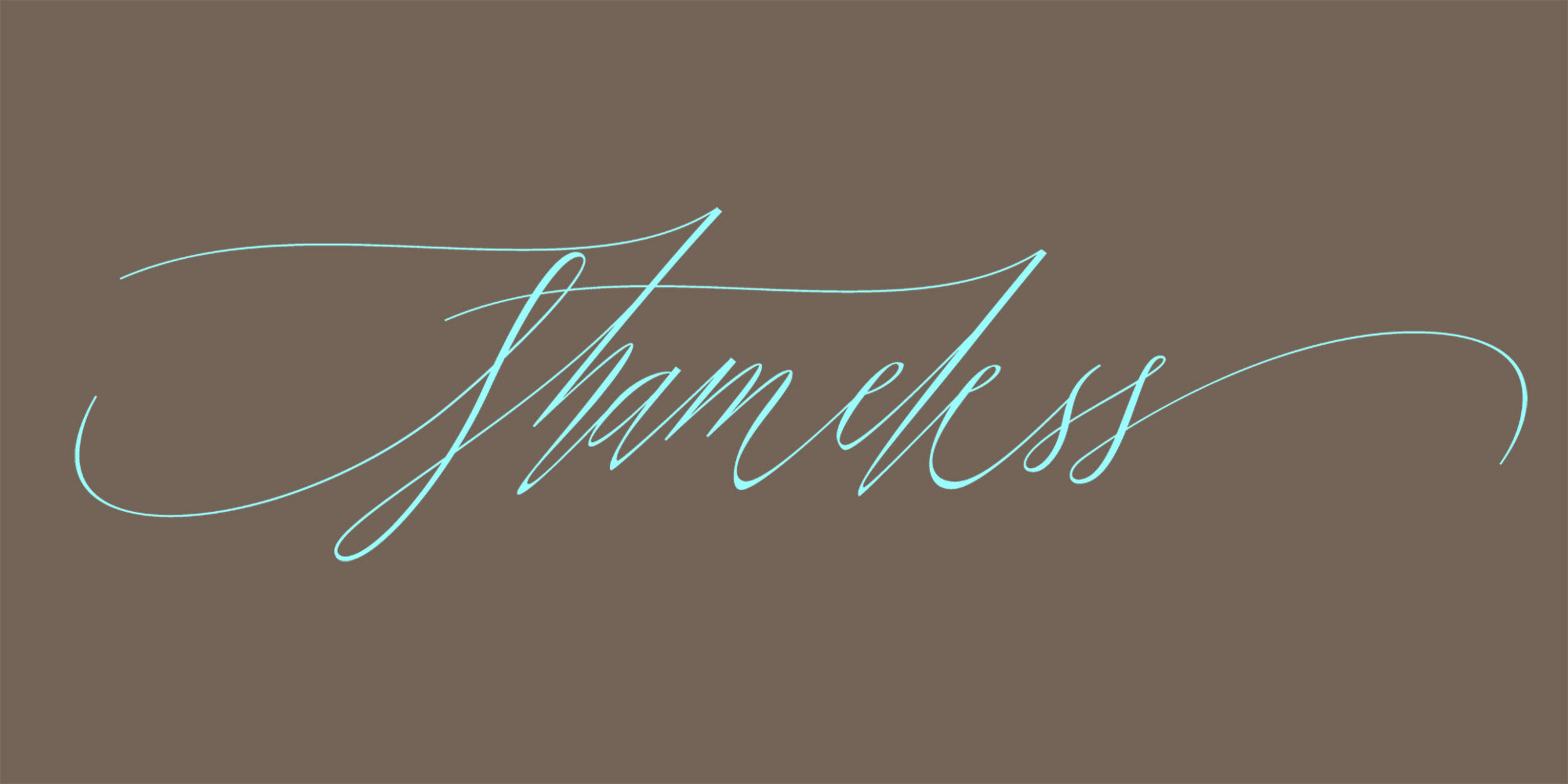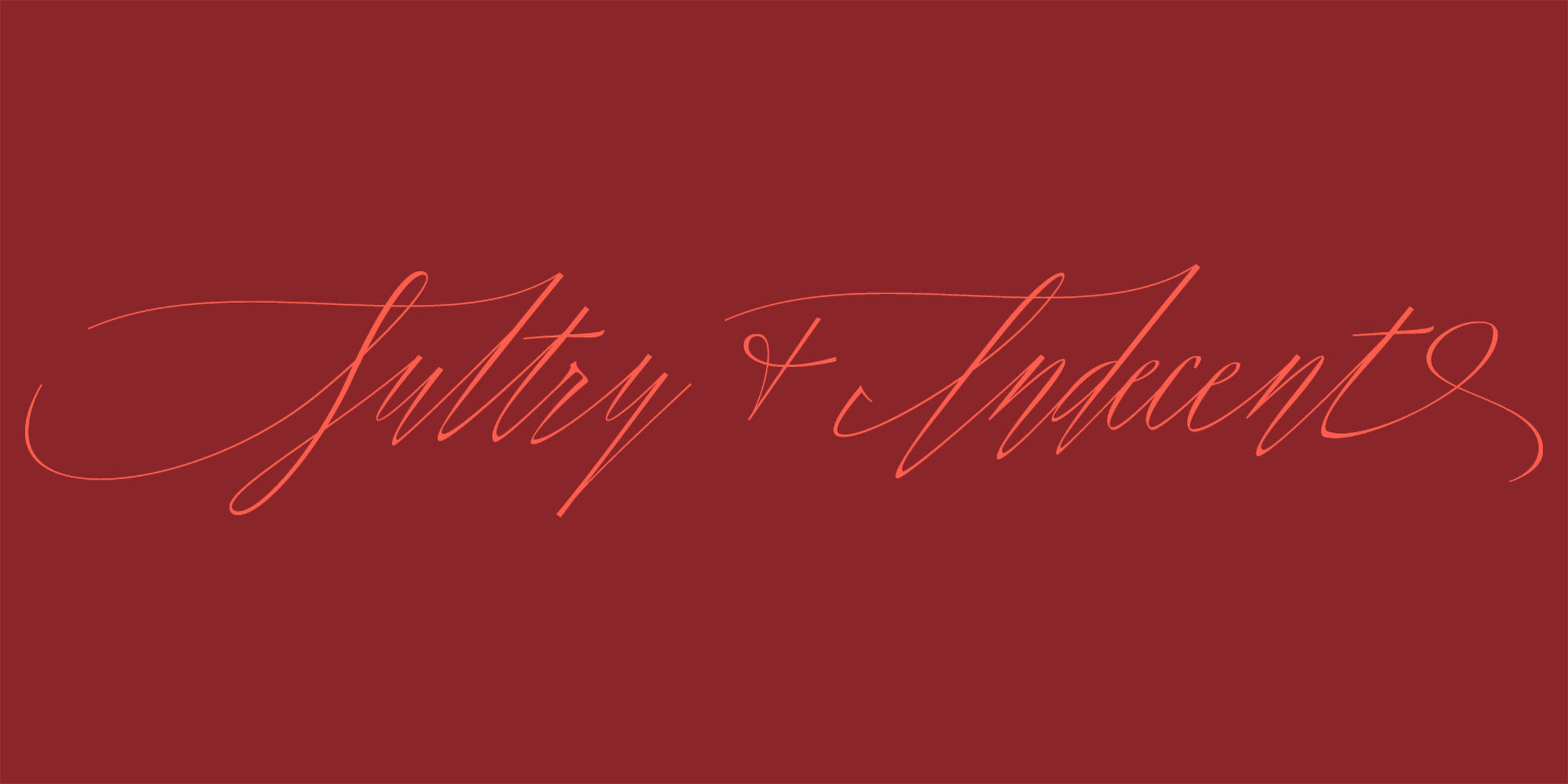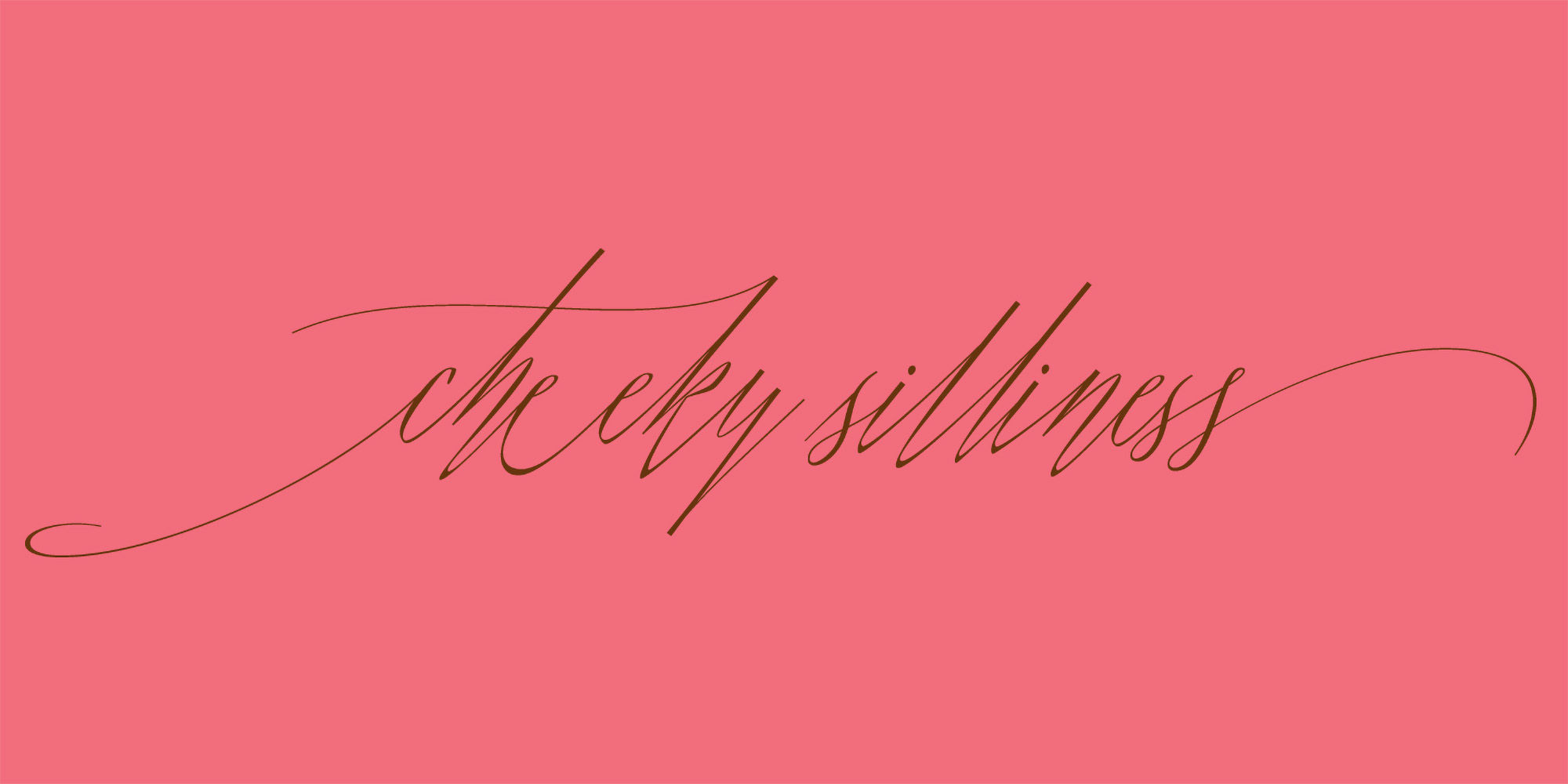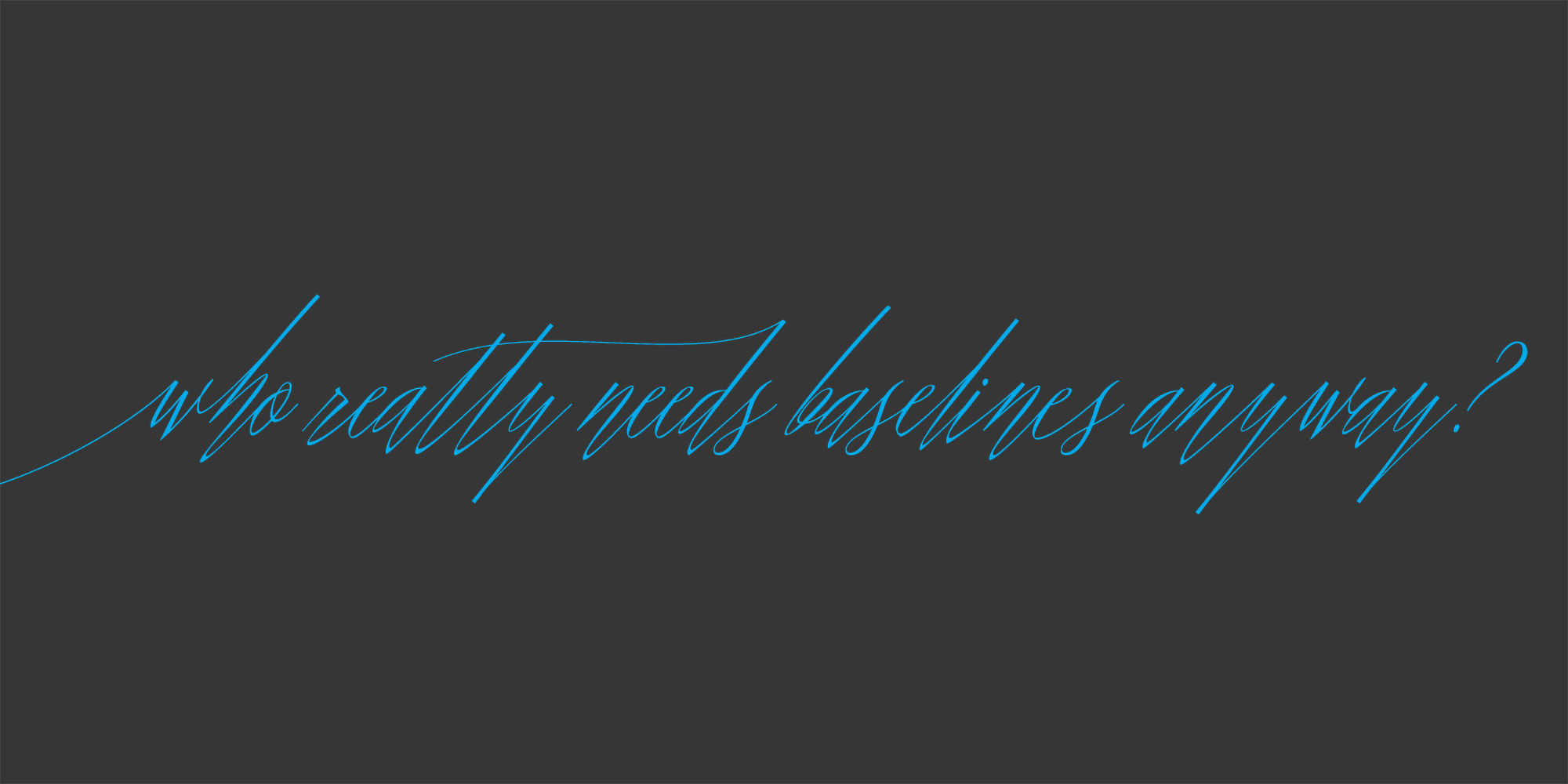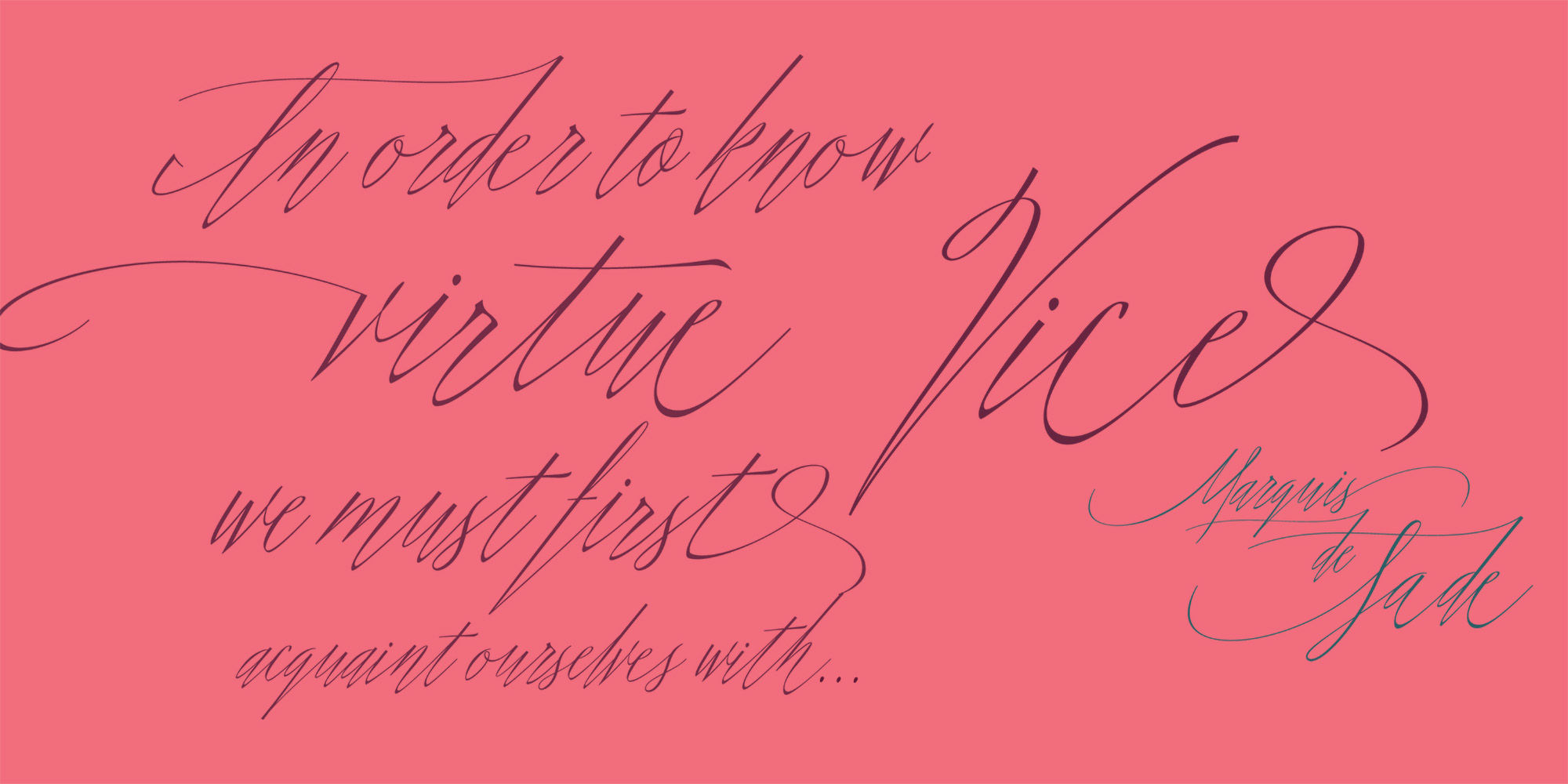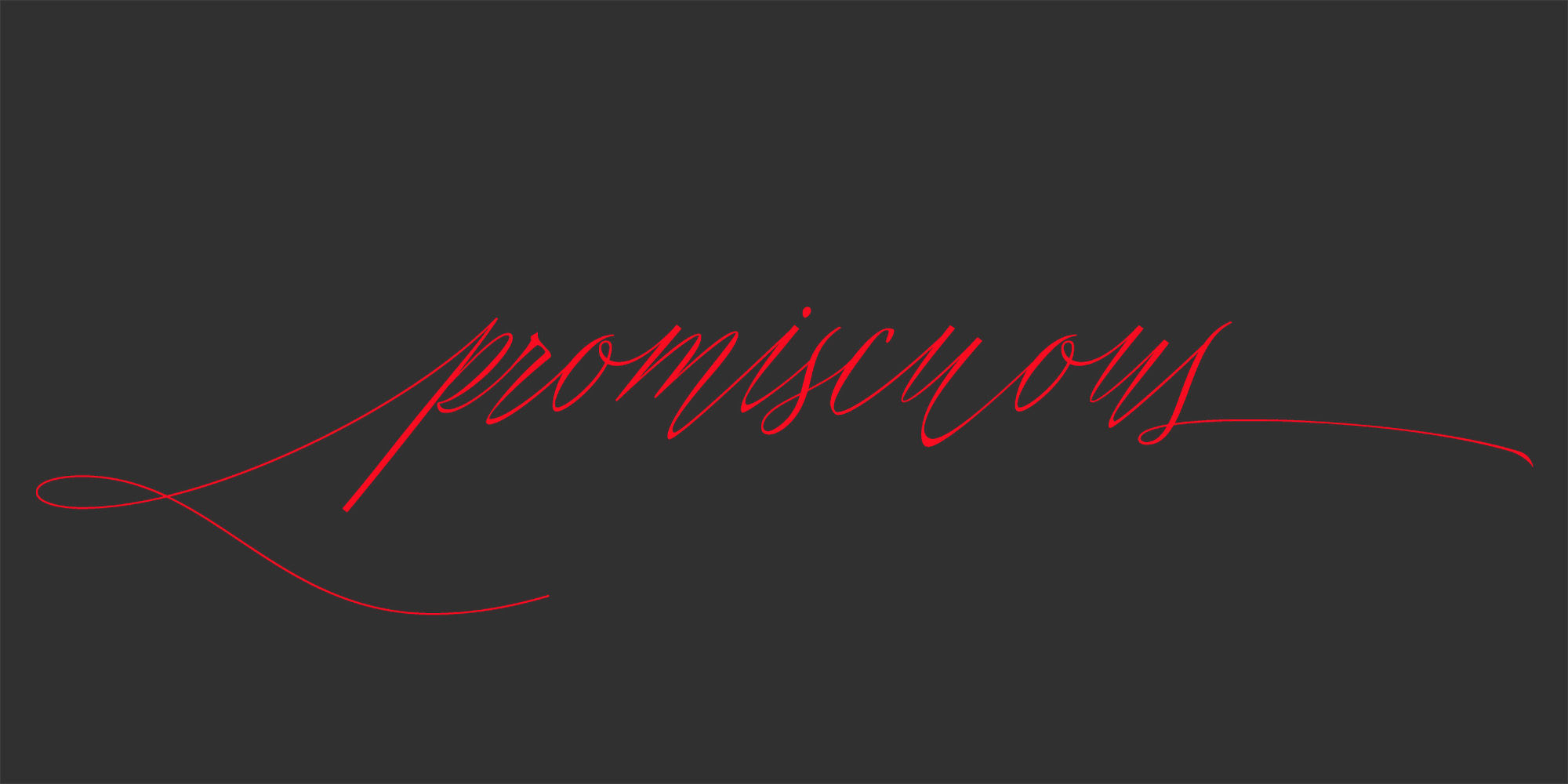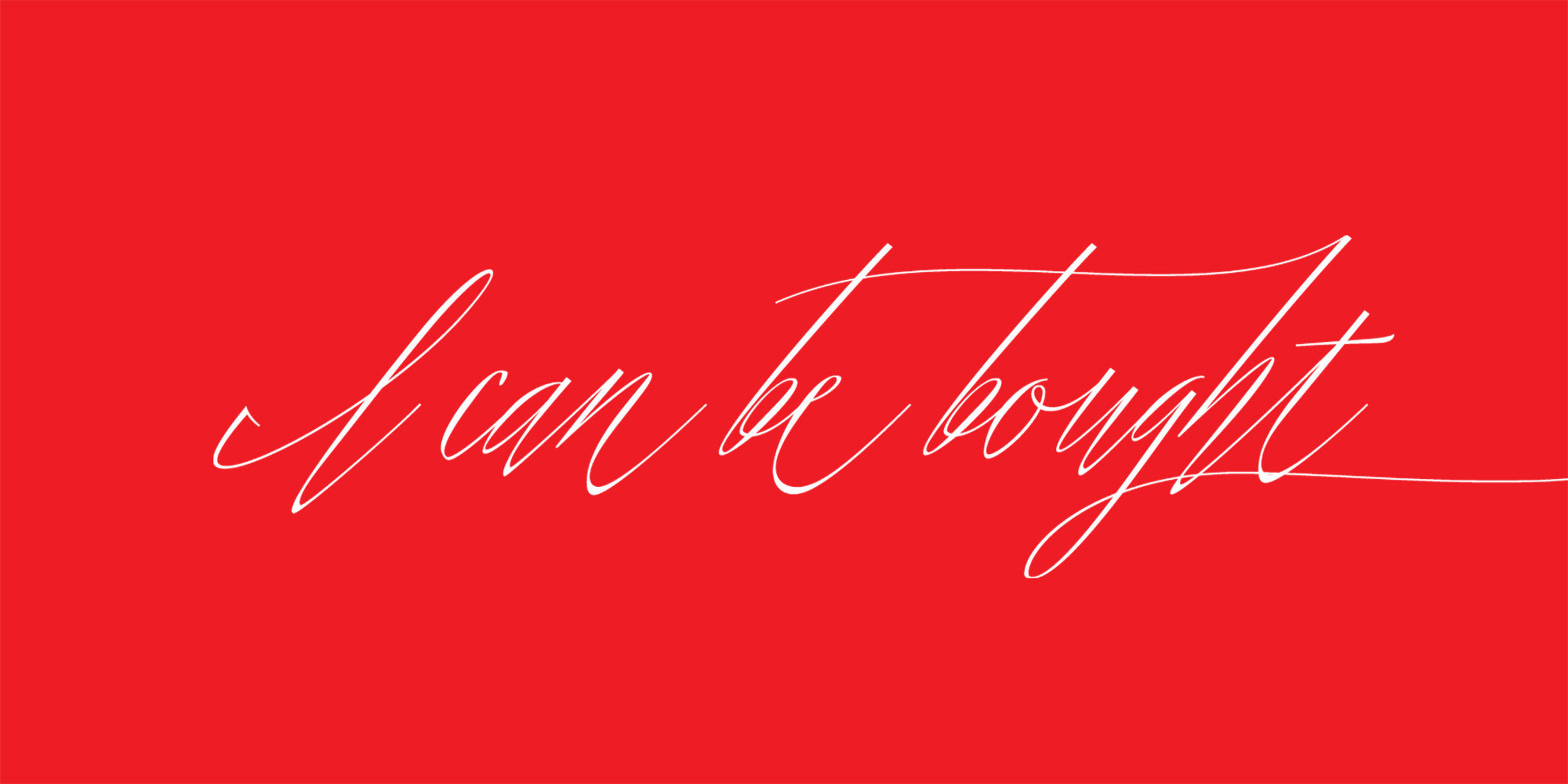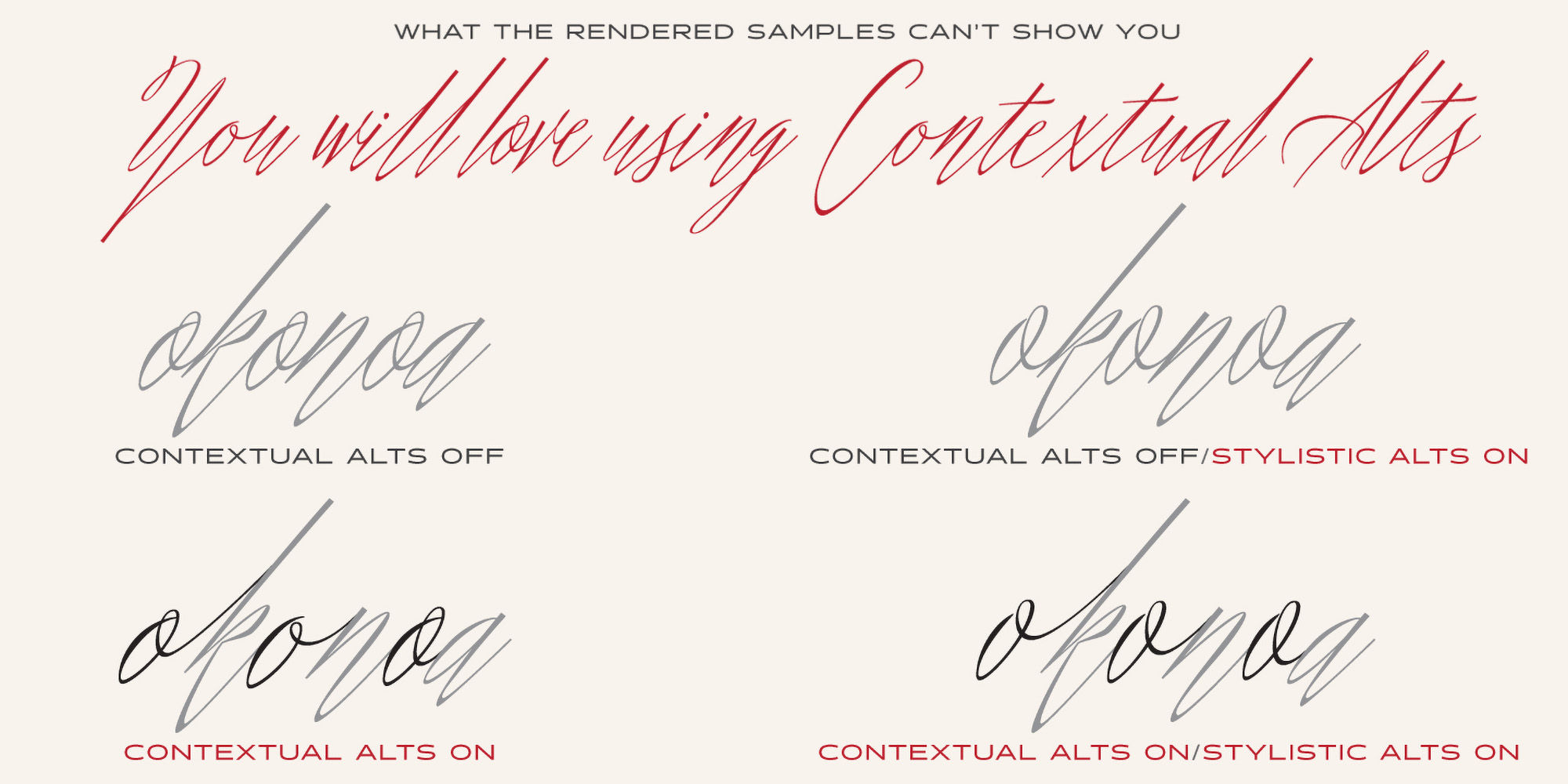
Shameless
I will spare you the long-winded description this time and all of the motivations and witty innuendoes. Quite frankly, I forgot about creating this typeface and it sat on my hard drive for almost a year. Luckily, my daughter Isobel saw the initial drawings one day and ask me about those pretty letters and I remembered… yep, that happened. That said, time made this a better typeface… with fresh eyes and time, much was redrawn, retooled and expanded to something I truly enjoy playing with.
Shameless makes extensive use of Contextual alternates to create a proper ebb and flow from letter to letter. Interestingly, there are only a handful of ligatures… instead many special combinations are accounted for solely by relying on Contextual Alts. Mix in Stylistic Alts, Swashes, responsive Titling Alts, numerous Style Sets, etc and you can have a lot of fun. I created 2 versions. A ‘Standard’ version that has 2200+ characters and a ‘Deluxe’ version that has 2400+ characters and an interesting caveat… I plan on expanding the Deluxe version any time I have an idea to add to the typeface… and as such, buyers will receive all of those updates at no charge (with updates going directly to the distributors). You get what you pay for… no insane discounts.
Oh, and if you are wondering… Shameless is based on my handwriting using Kuretake Zig Cocoiro pens. I love those pens.